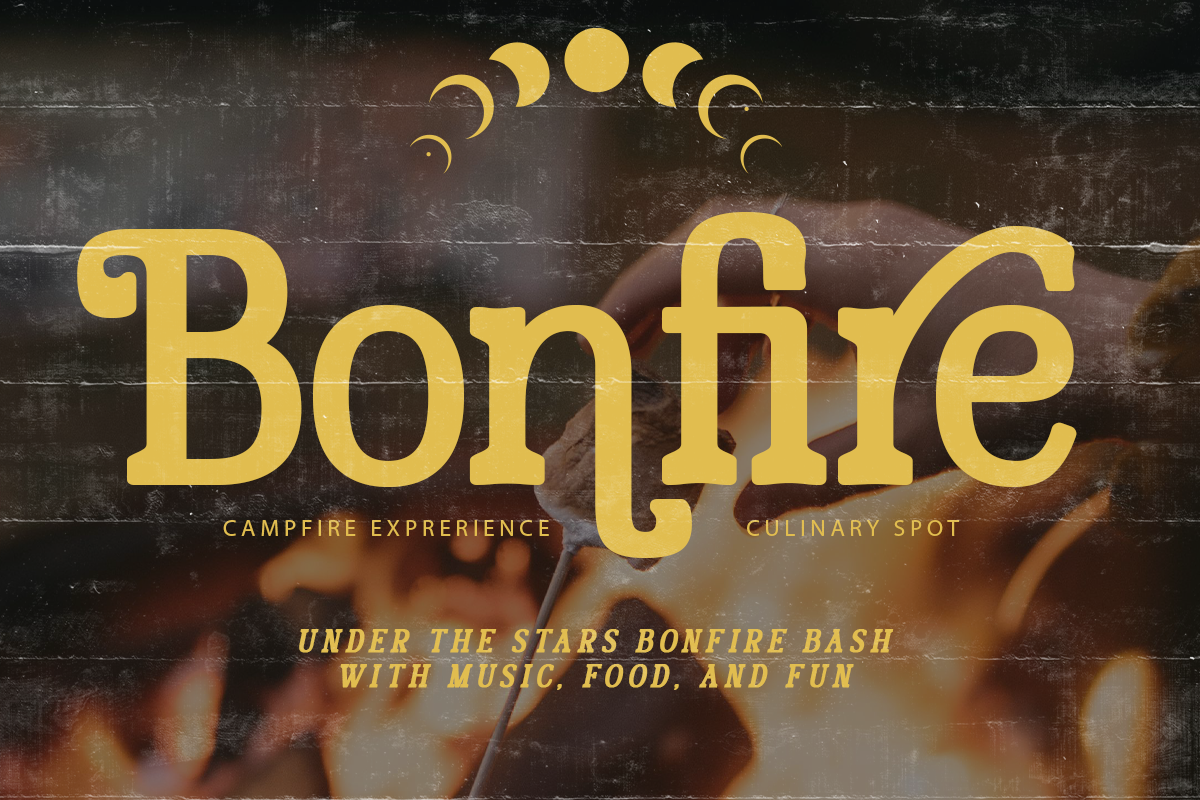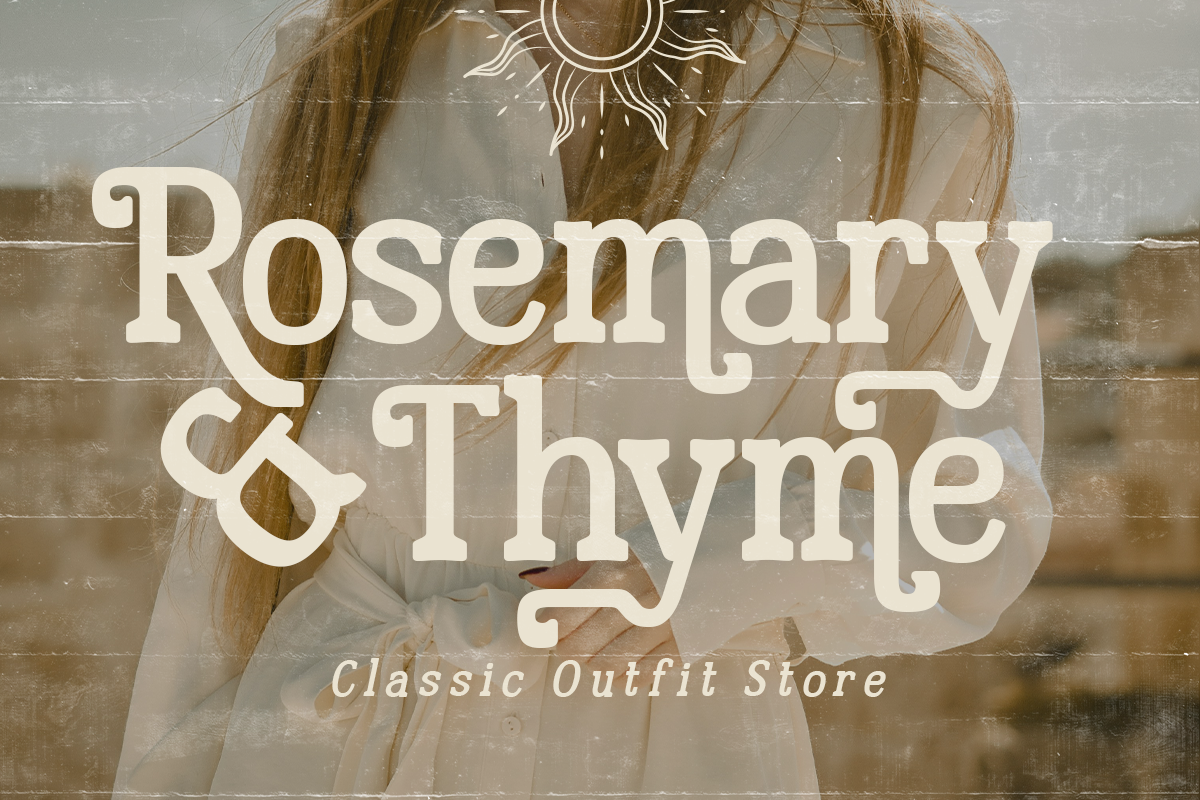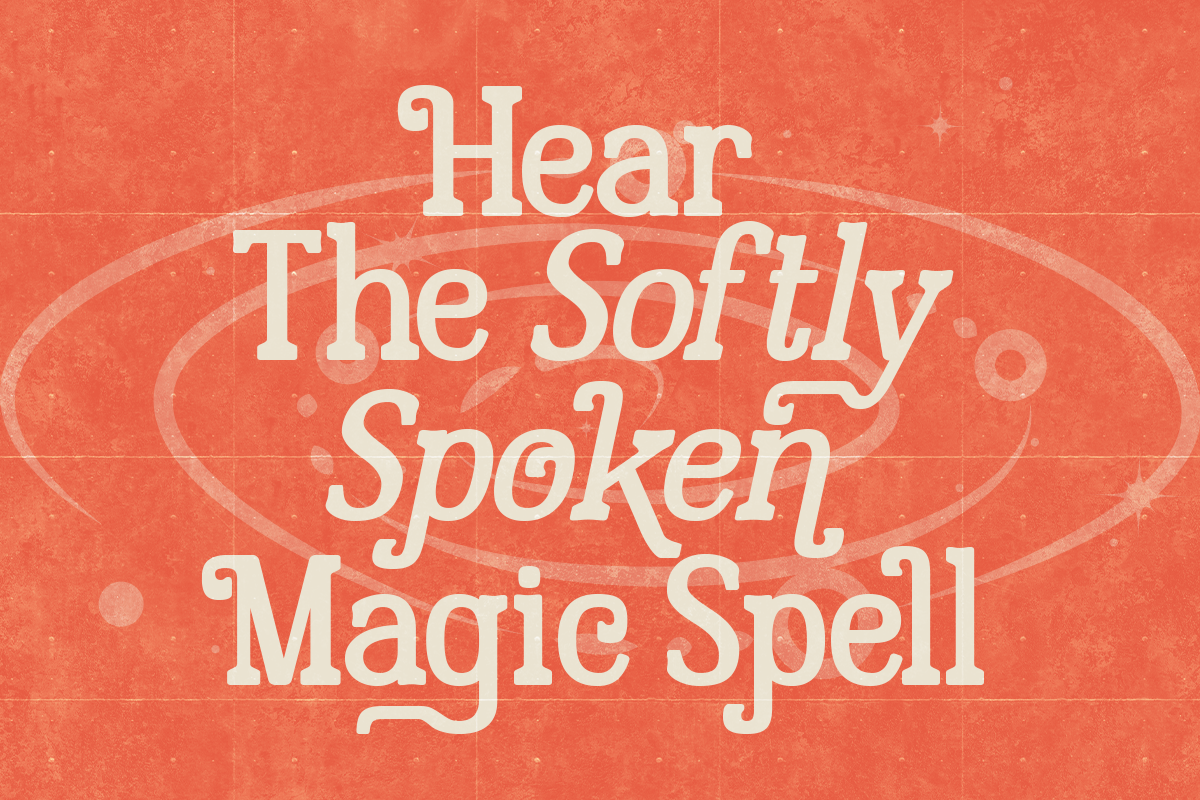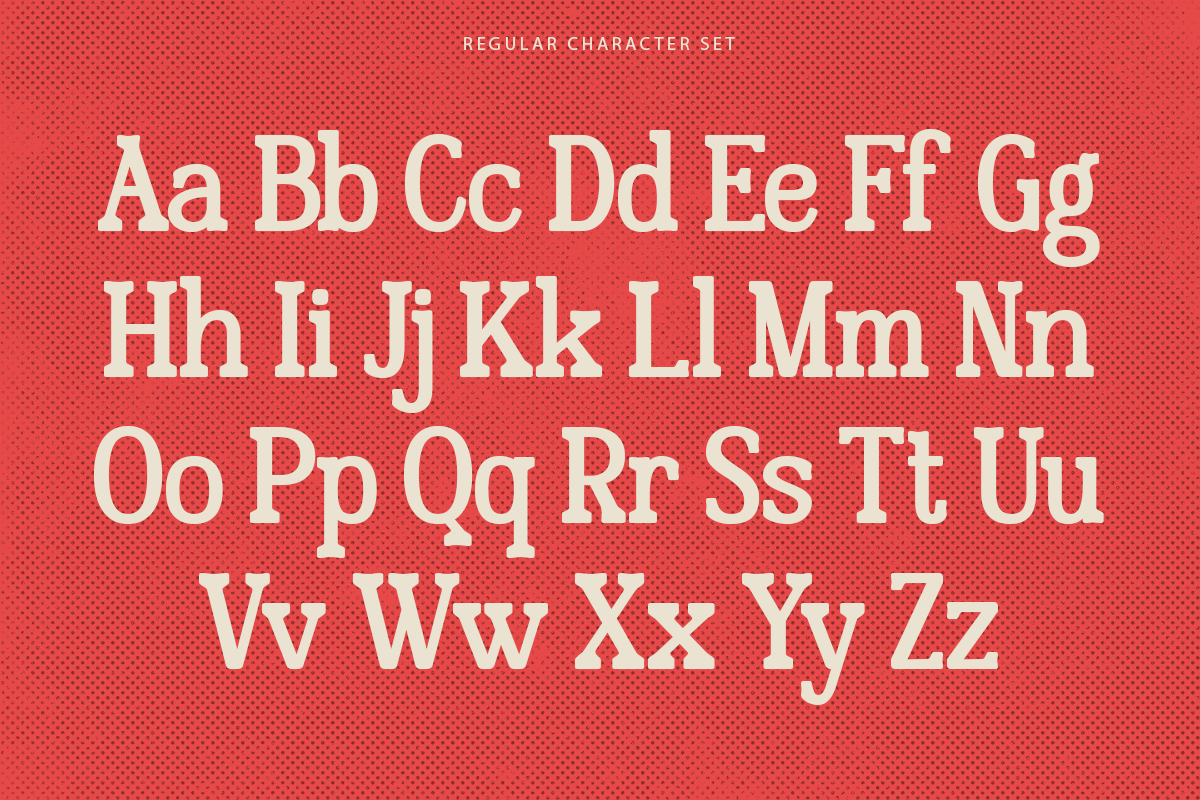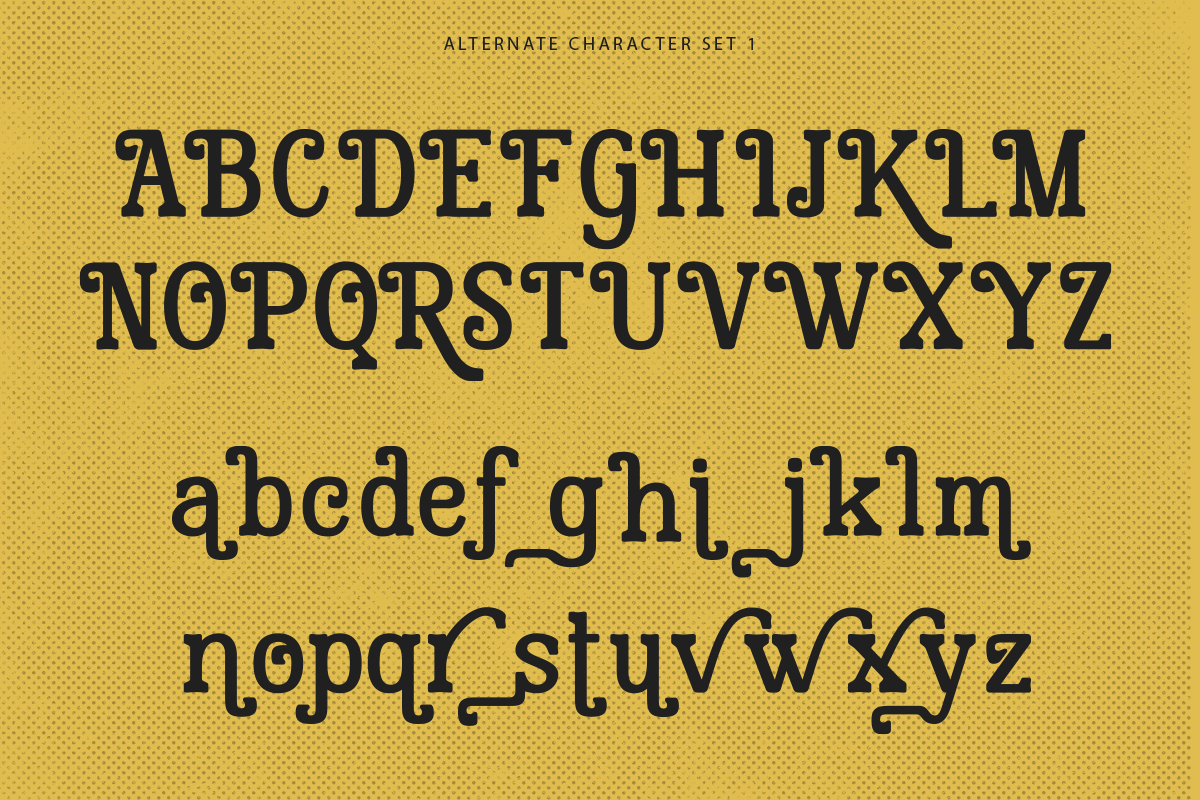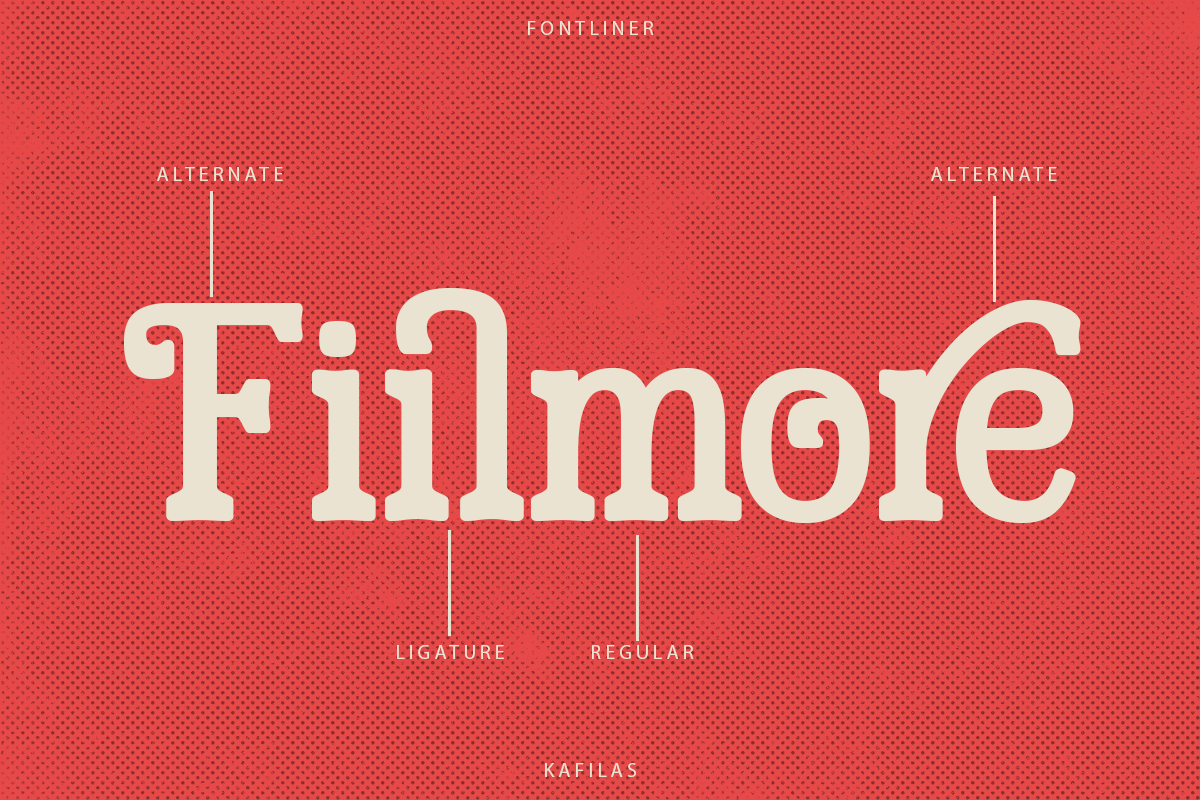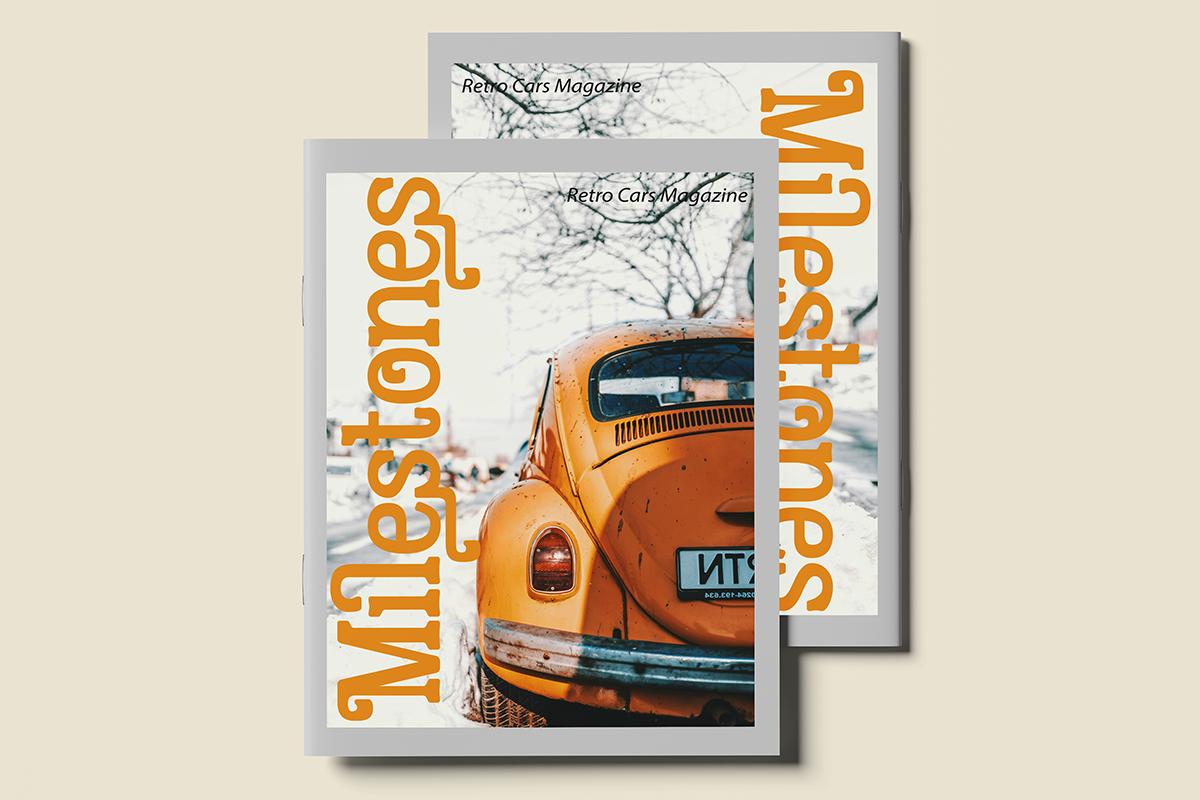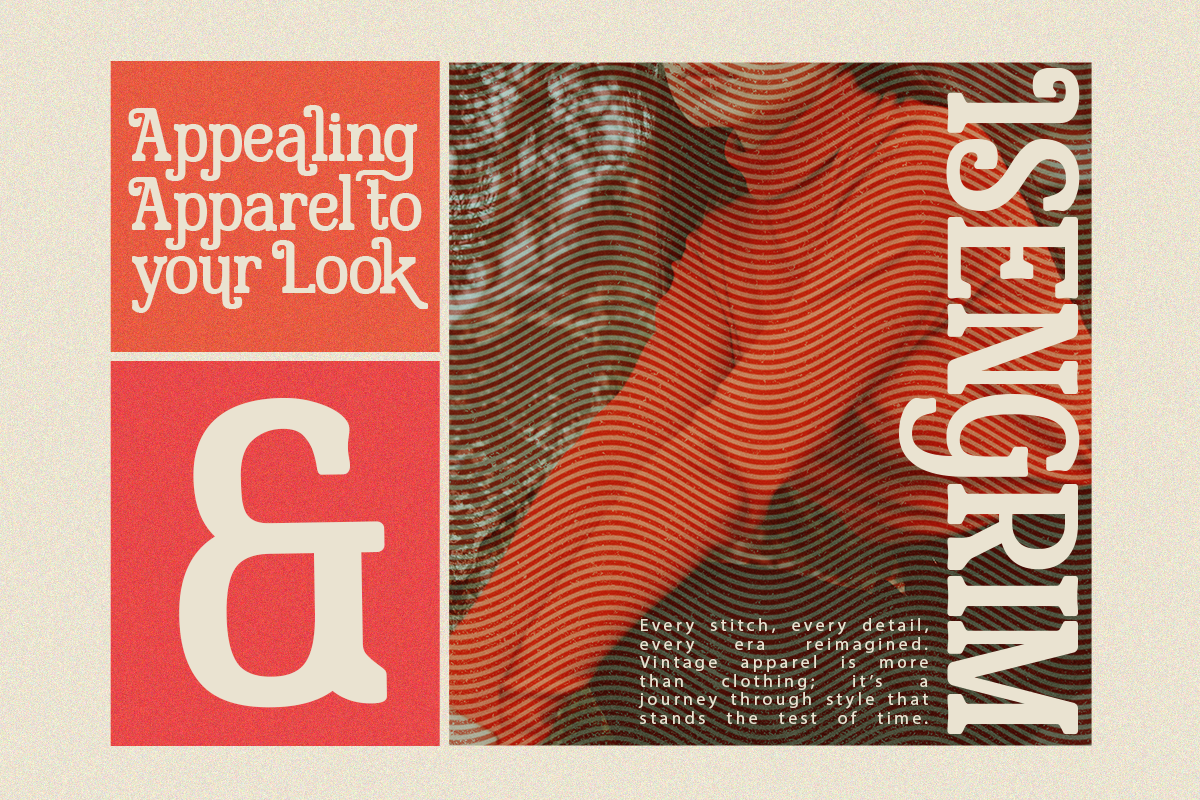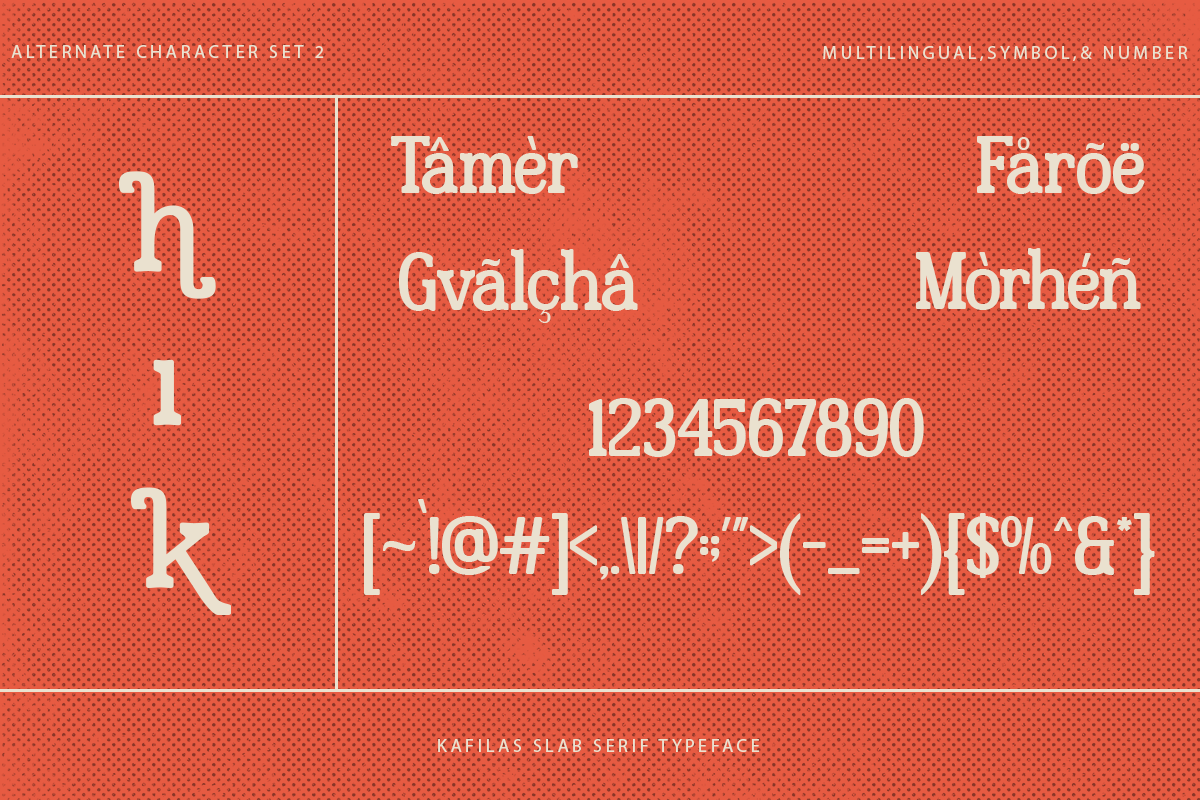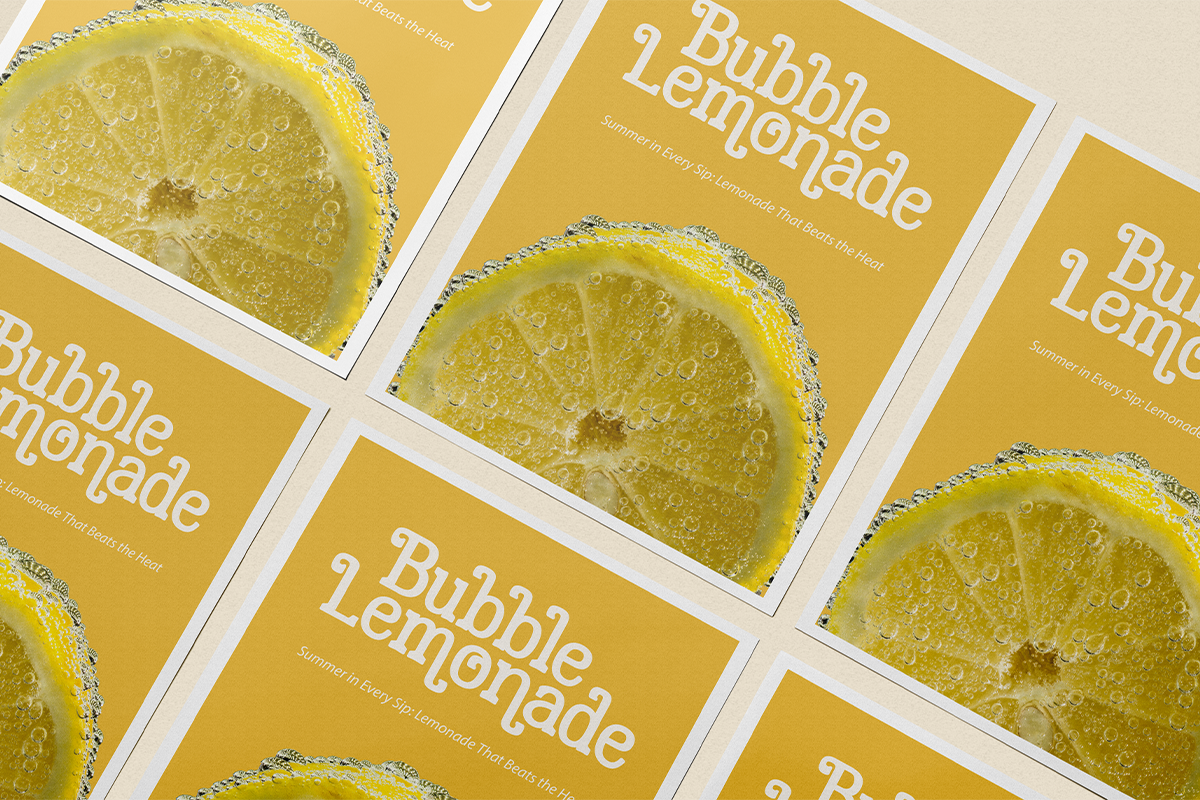
Kafilas - Stylish Slab Serif
Kafilas - stylish slab serif font with some stylistic alternates and ligatures - see previews above for the alternates you get. Great for that laid back, retro-styled look :) Kafilas perfect for create stunning logos, quotes, posts, blog posts, branding projects, magazine imagery, poster, and much more.
- 50+ Stylistic Alternates and Ligatures
- Multi Language Support